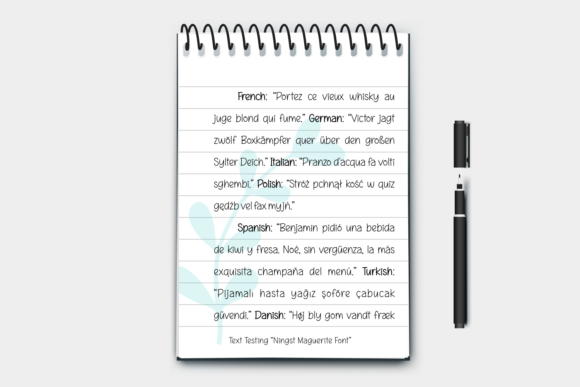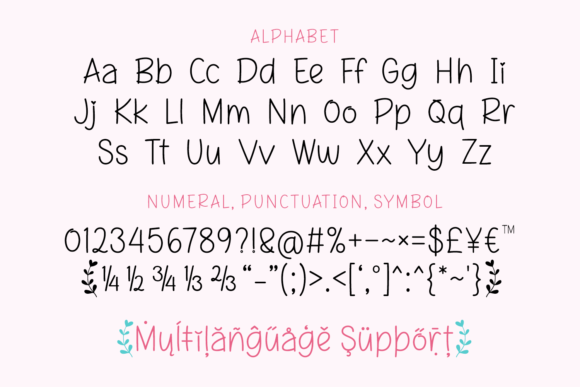
About Ningst Marguerite Font
Ningst Marguerite is a cute, quirky and relaxed handwritten font. It works great for designs that require an informal, friendly touch. It could easily be added to Valentine’s designs or pretty much anything that could benefit from a lovely vibe.